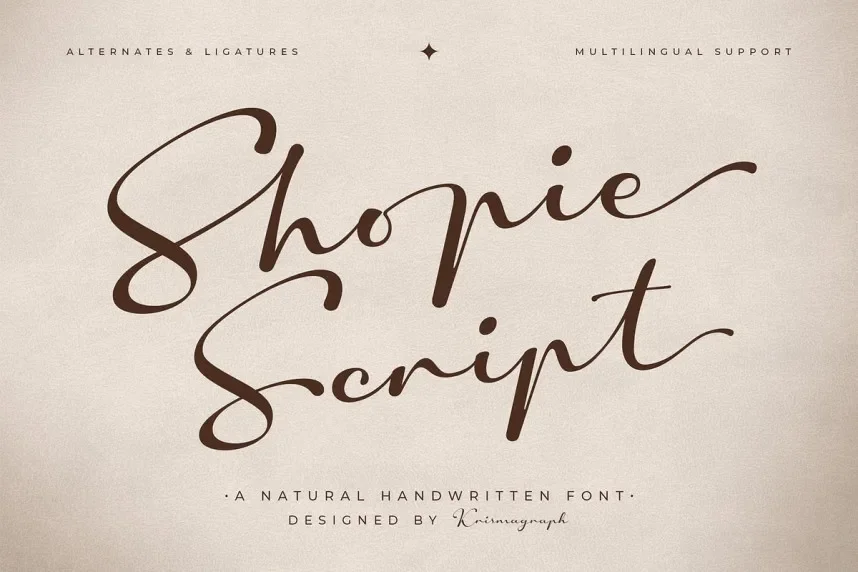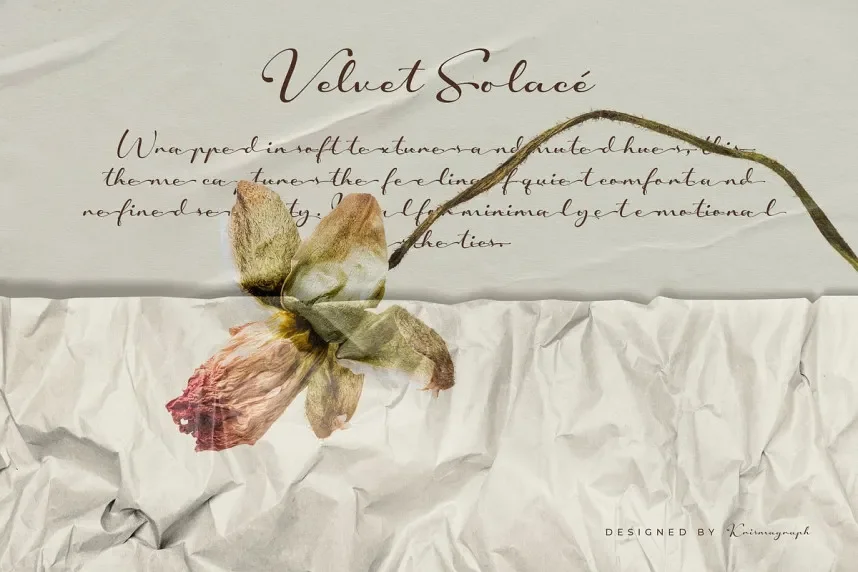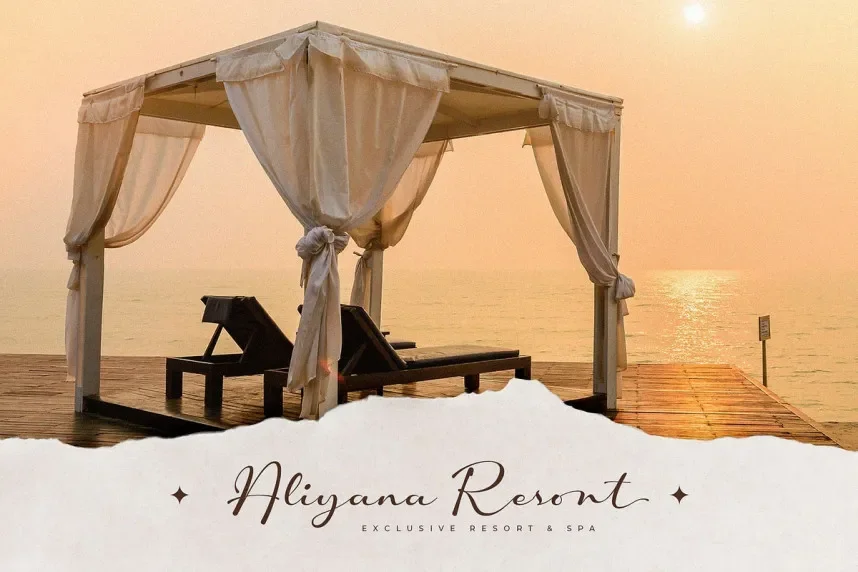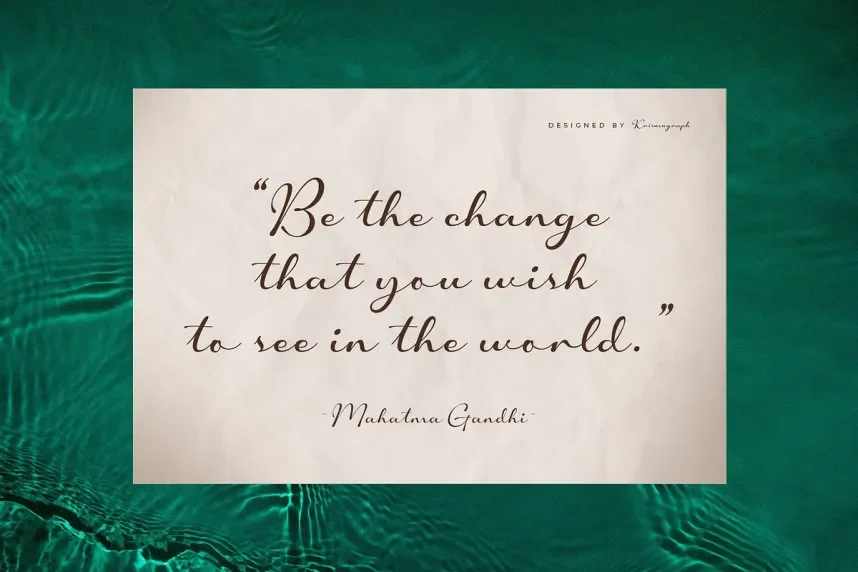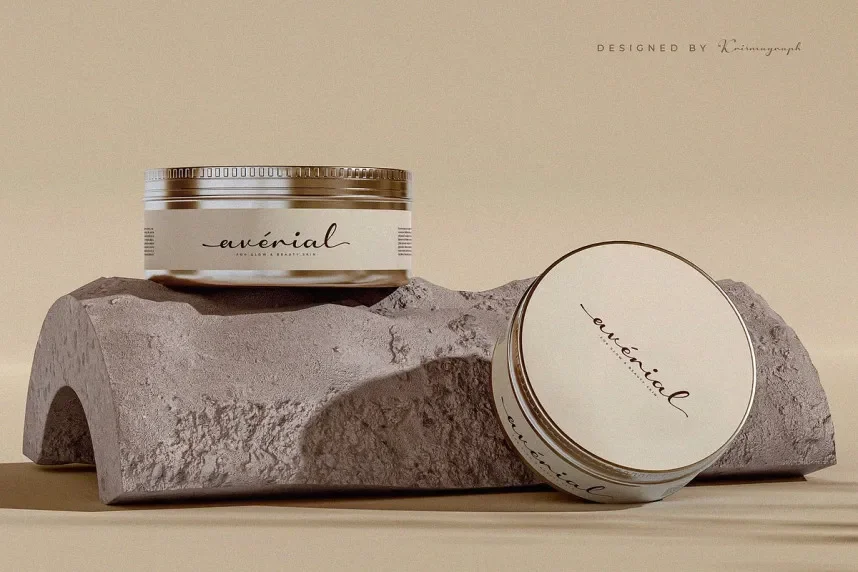
Shopie Script Font is a flowing, handwritten script typeface designed to add a personal touch to your designs. Its smooth curves and elegant swashes make it ideal for invitations, branding, and any project that requires a human, artistic feel.